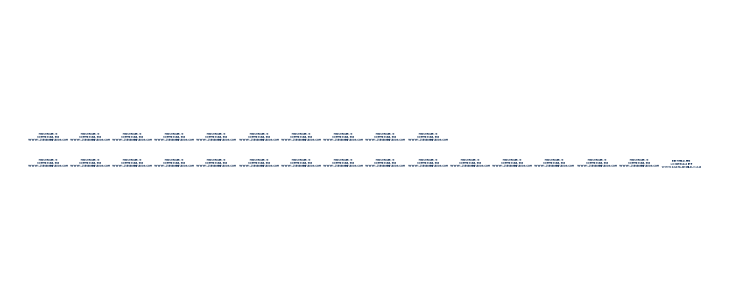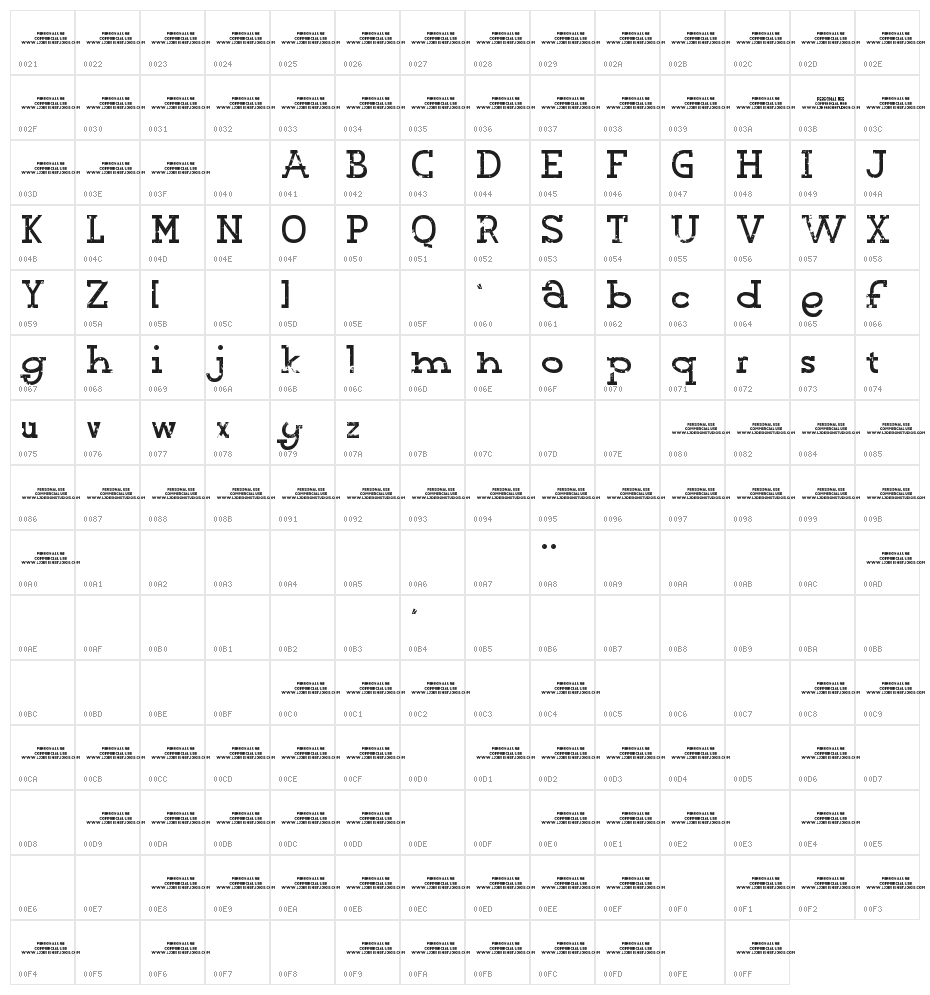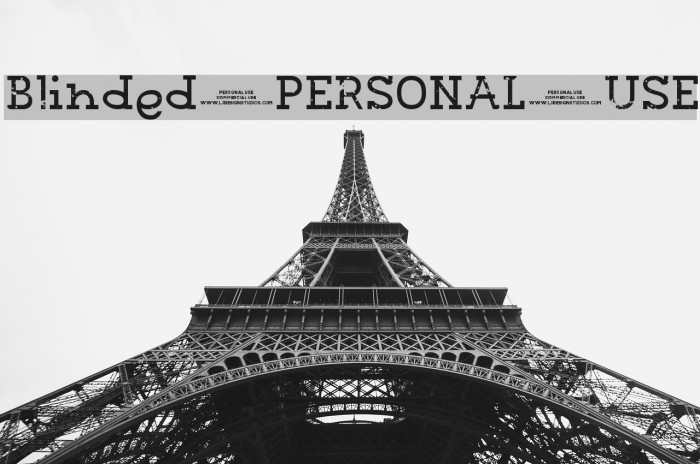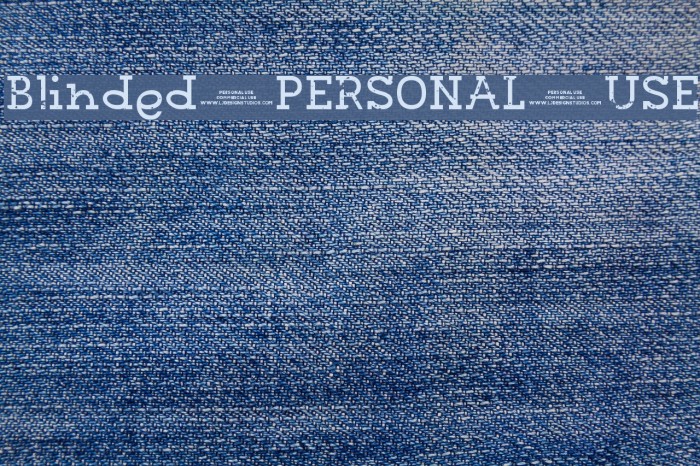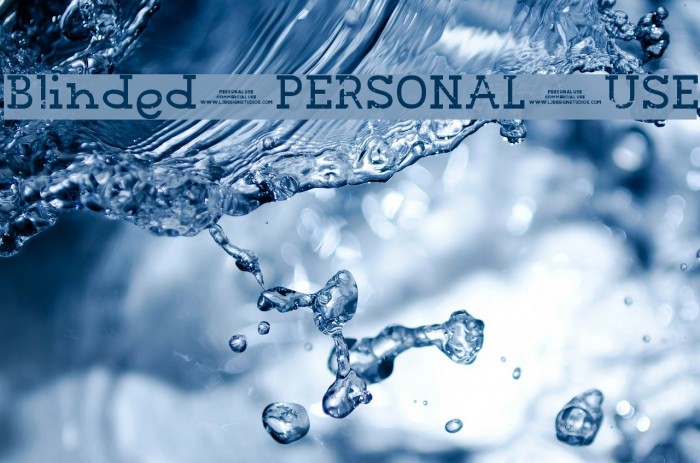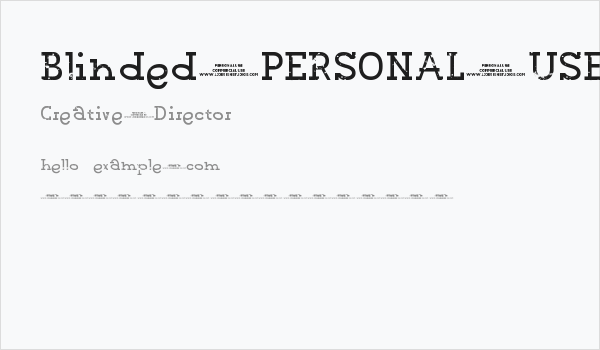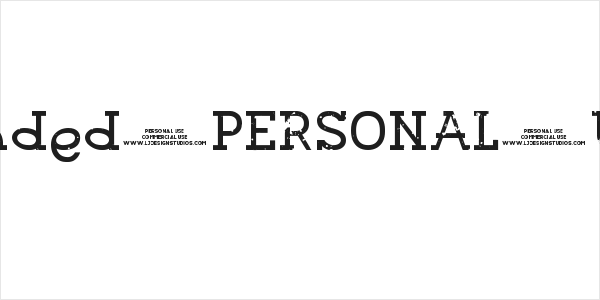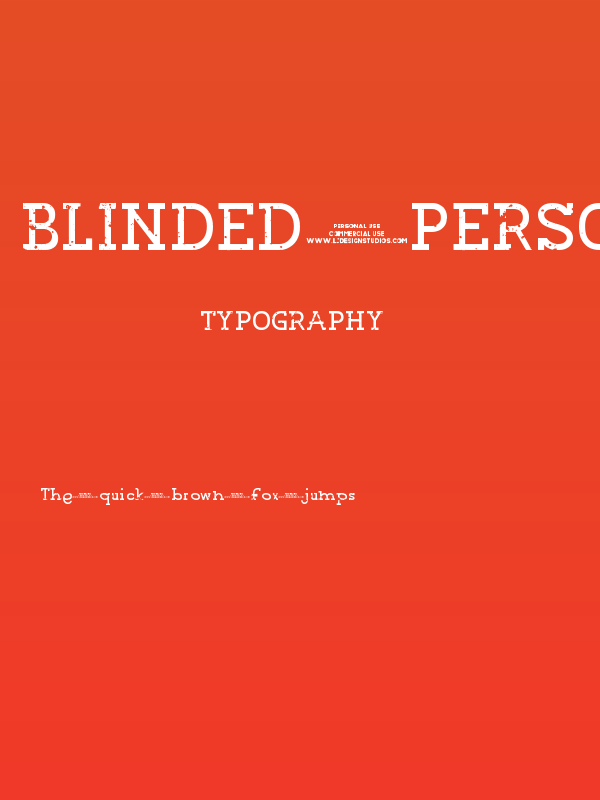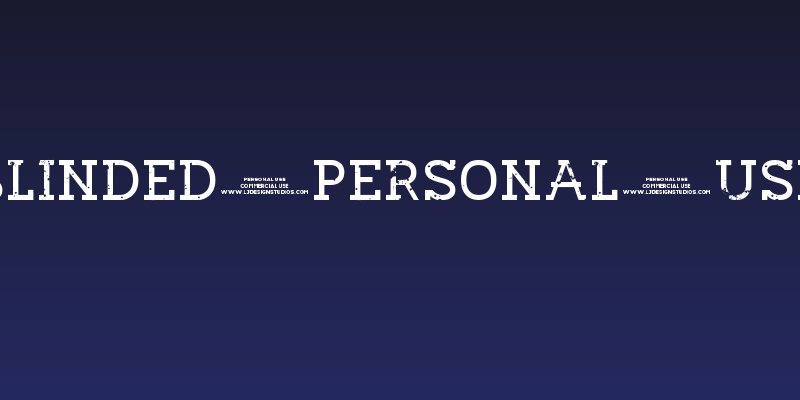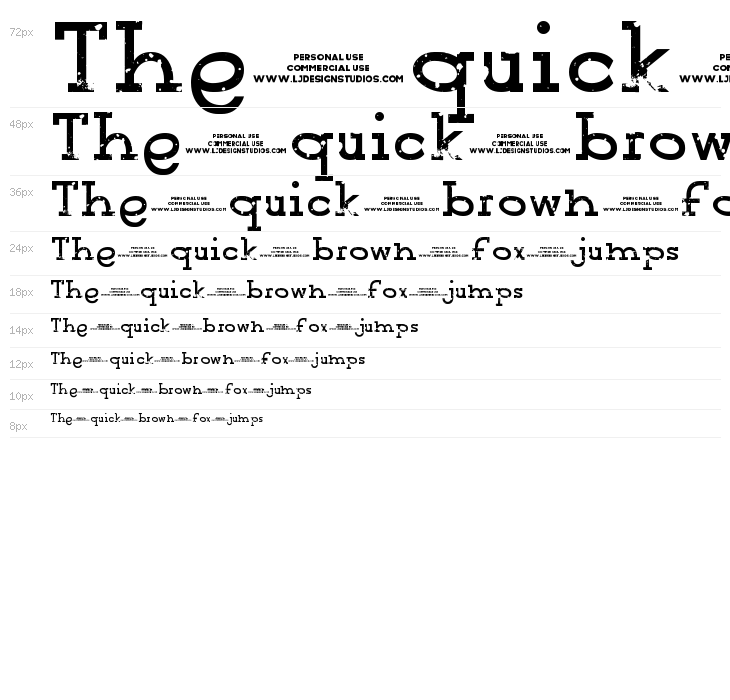
Blinded PERSONAL USE Font
Blinded PERSONAL USE Description
This font features a distressed, grunge style with a serif structure. The characters appear weathered, giving them a vintage and rugged appearance. The uppercase and lowercase letters maintain a consistent serif form, while the distressing adds a unique texture to each character. The numbers and special characters follow the same design, ensuring uniformity across all glyphs. This font's rough edges and irregularities make it stand out, providing a sense of character and history. It's ideal for projects that require a bold, eye-catching typeface with a touch of nostalgia.
| Proposed Projects | Ideal for posters, album covers, branding, and any design needing a vintage, rugged look. |